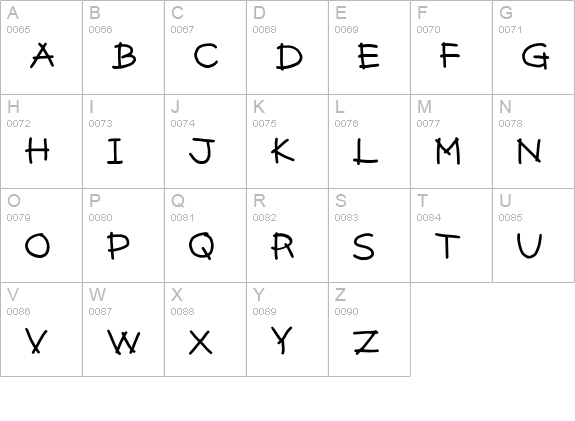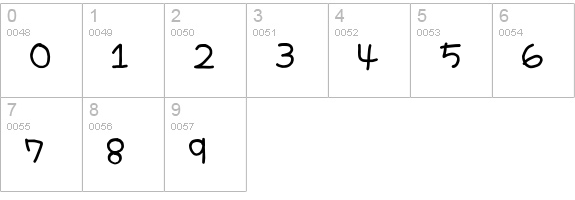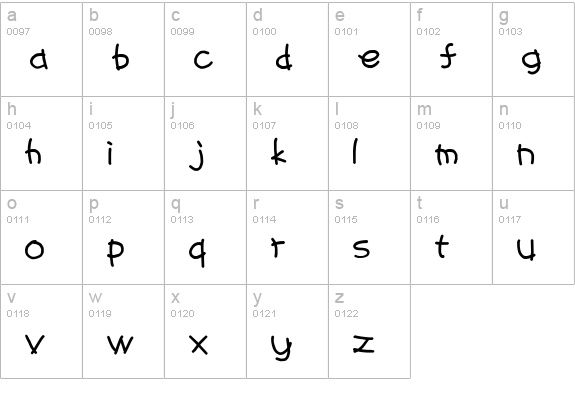
Pencil (sRB) Font Details
Pencil (sRB) font is a playful and whimsical typeface that brings a touch of creativity and charm to any design project. Its hand-drawn aesthetic emulates the look of a pencil stroke, adding a unique and organic feel to your text. With its slightly uneven lines and imperfect curves, Pencil (sRB) font captures the essence of a hand-drawn sketch, making it perfect for adding a personal and artistic touch to invitations, greeting cards, posters, and more. This font's versatility allows it to be used across a wide range of design styles, from children's books and illustrations to modern and trendy graphic designs. It seamlessly blends into any project, giving your text a playful and light-hearted vibe. One of the best things about Pencil (sRB) font is that it is freely available to download at FontsMarket.com. This means that you can easily access this unique and eye-catching font without any cost. Whether you're a professional designer or simply someone looking to add a creative flair to their personal projects, Pencil (sRB) font is a fantastic choice. So why wait? Add a touch of whimsy and creativity to your designs with Pencil (sRB) font. Download it for free at FontsMarket.com and start bringing your ideas to life with this delightful and unique typeface.